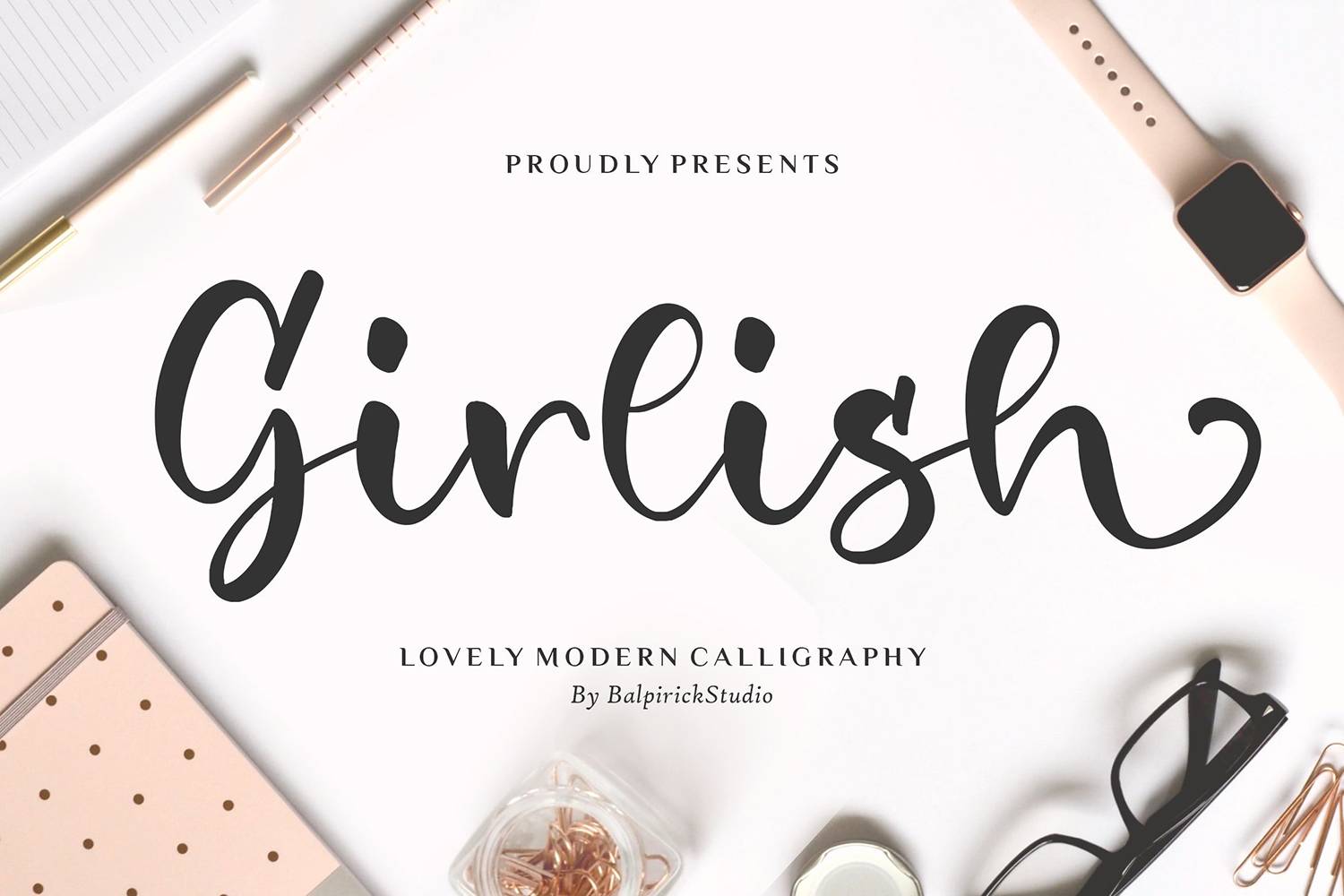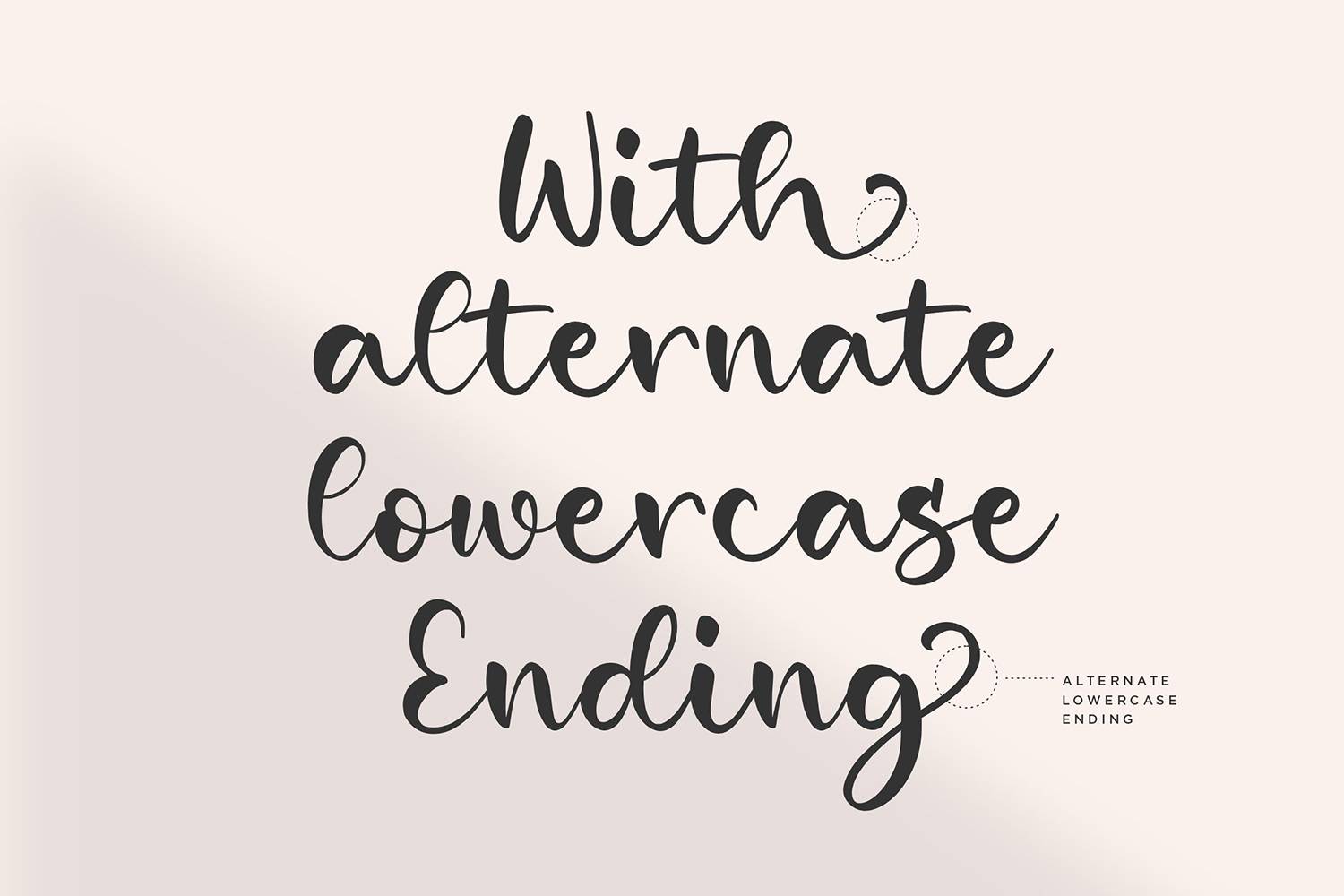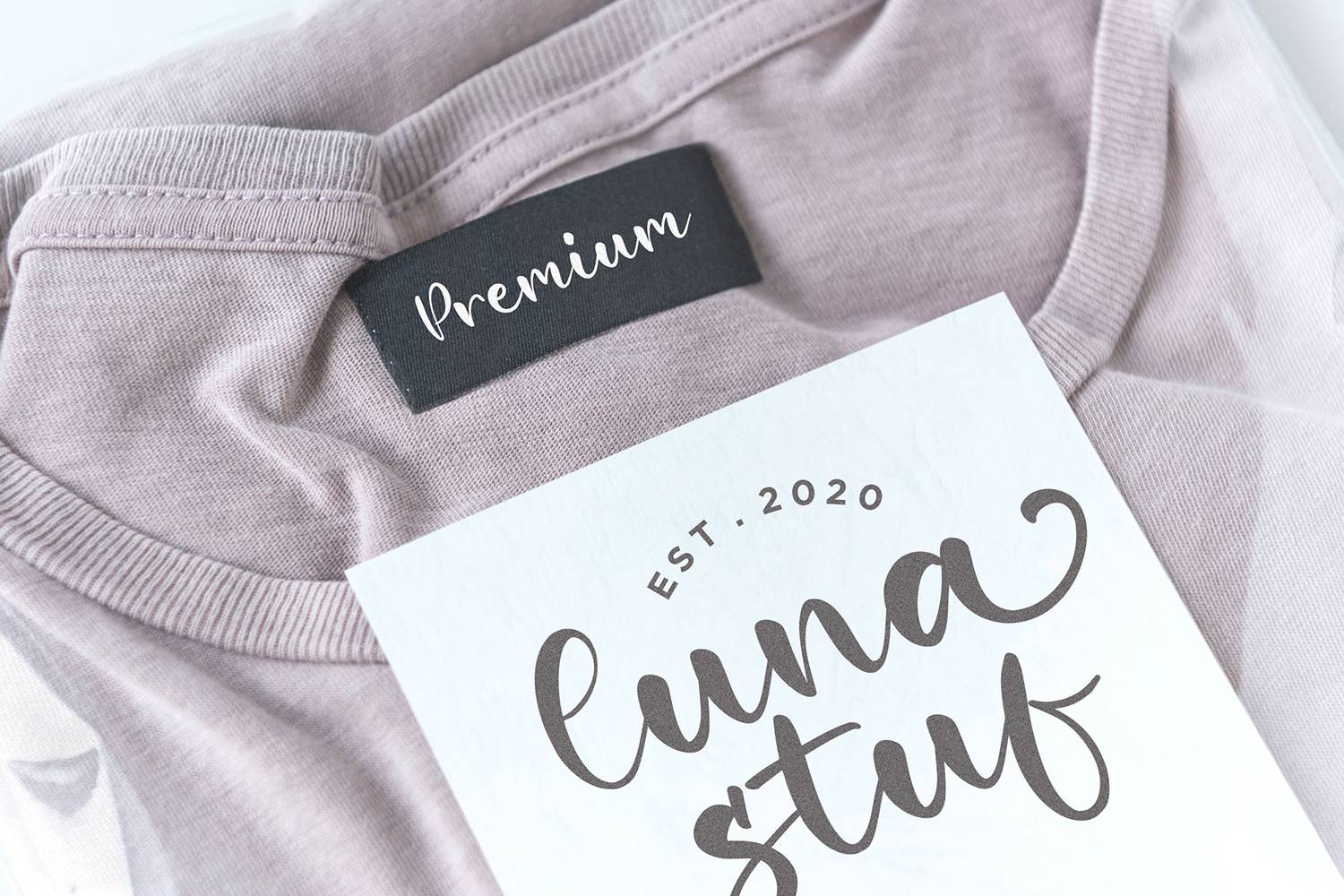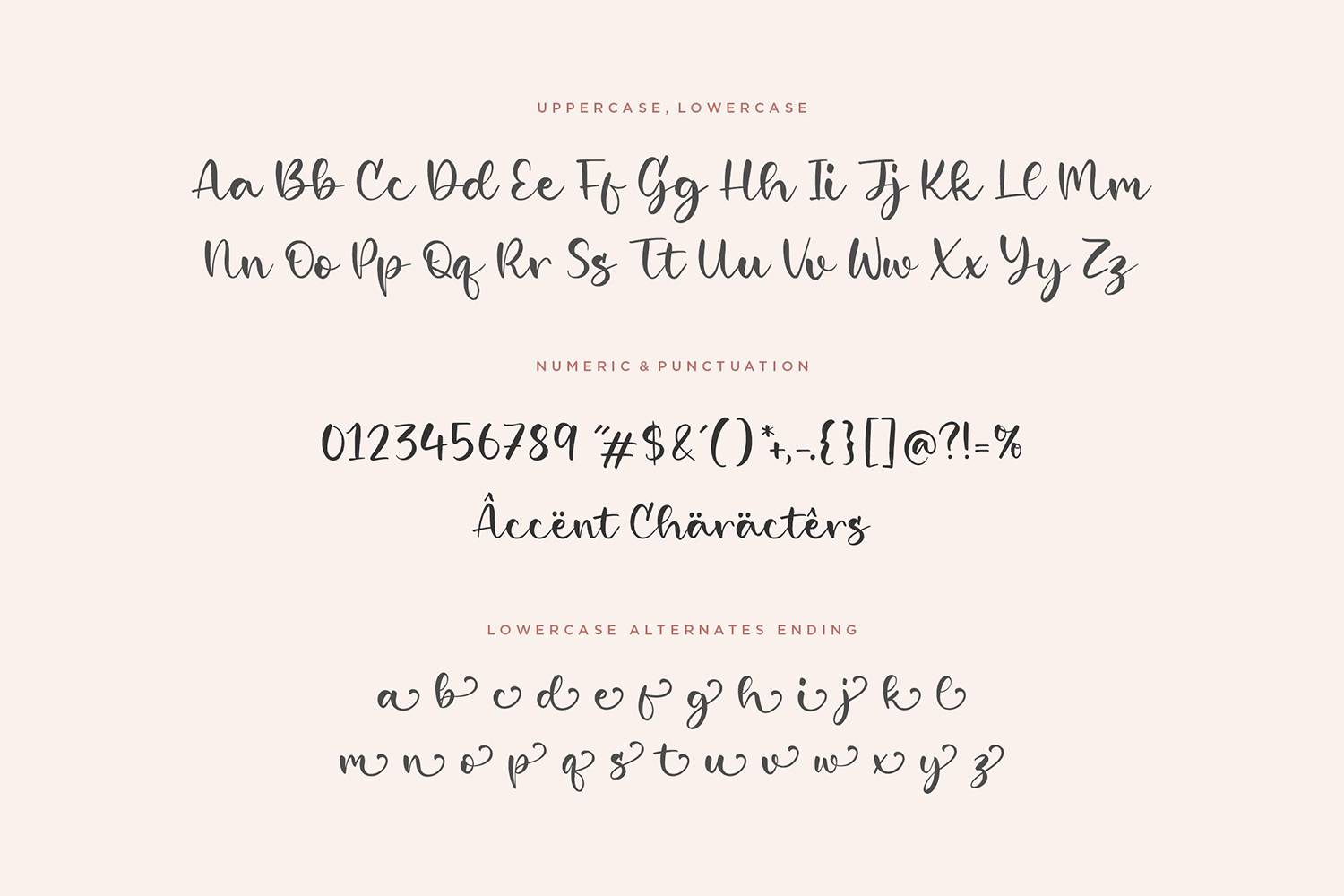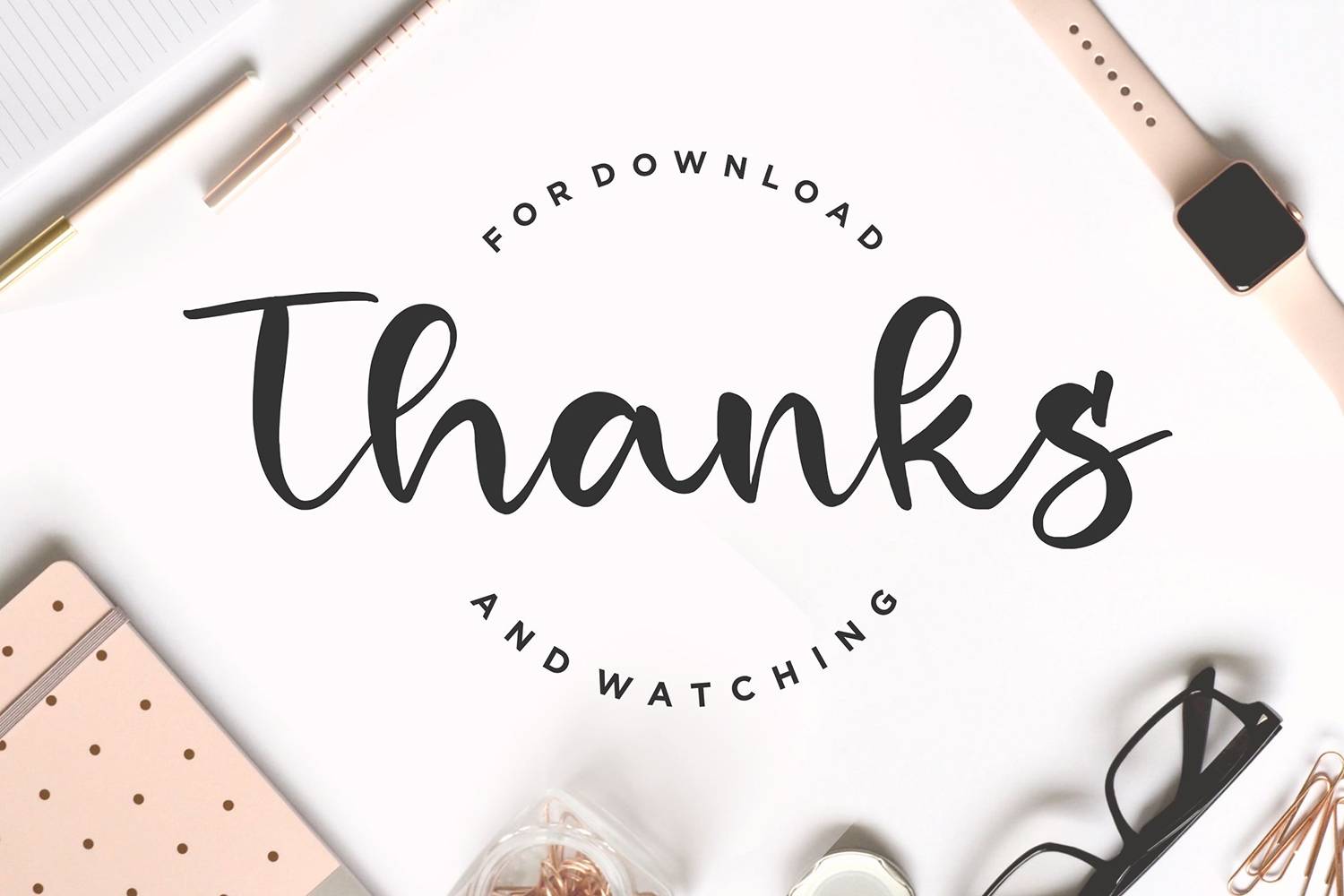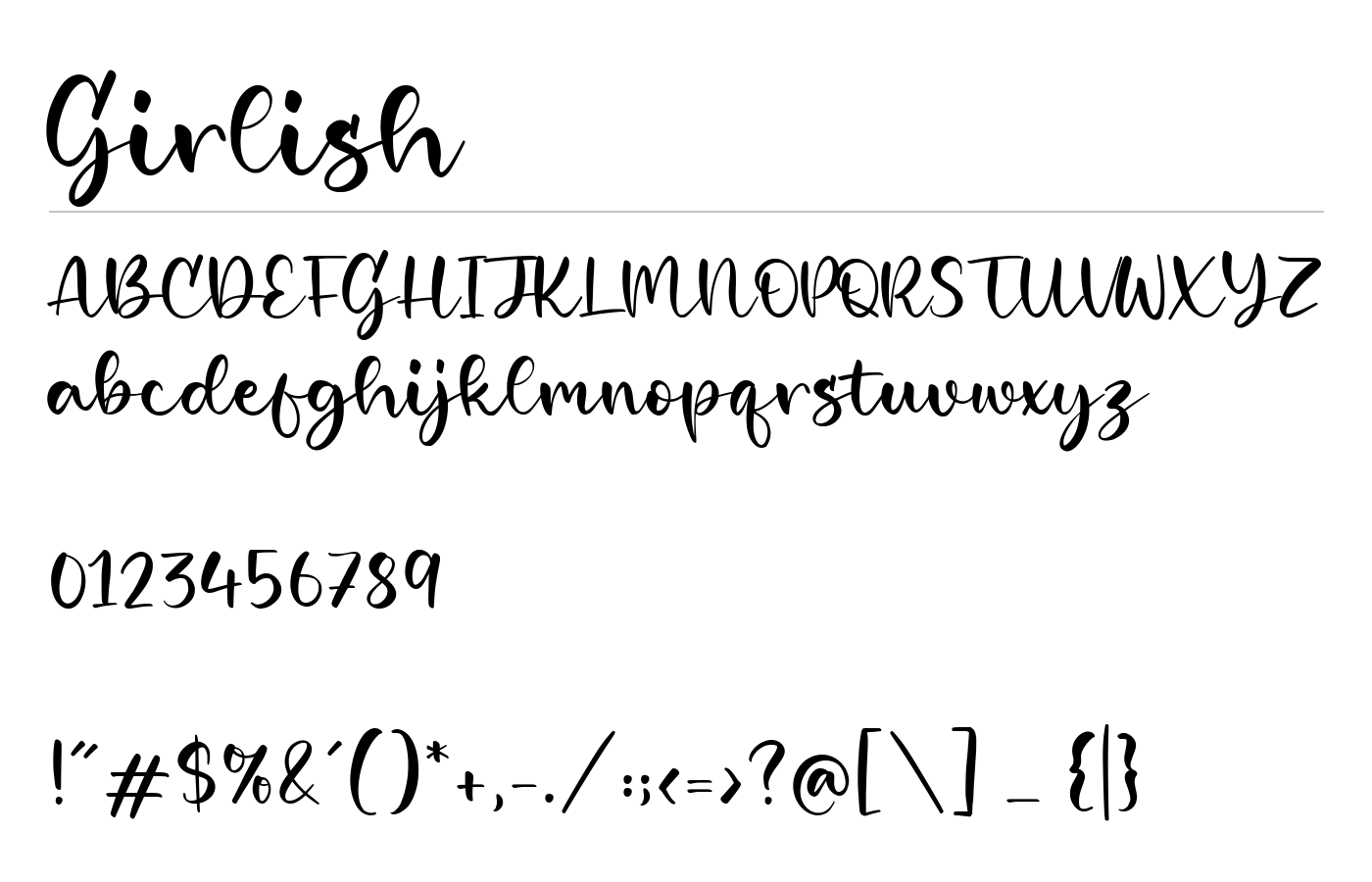
Girlish is a playful and elegant script font with a hand-lettered feel, featuring smooth, flowing strokes and a casual yet refined style. Its moderate weight and balanced contrast make it perfect for feminine branding, invitations, and creative projects seeking a warm, approachable vibe. Ideal for logos, packaging, and headlines, Girlish brings a charming, youthful personality to any design.
Girlish Font
About Girlish Font